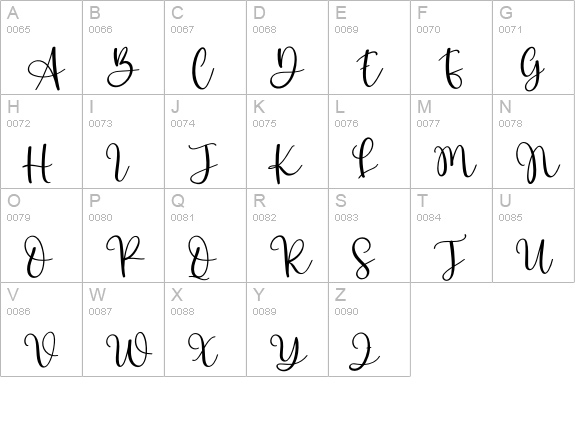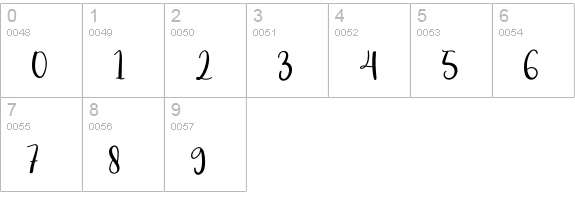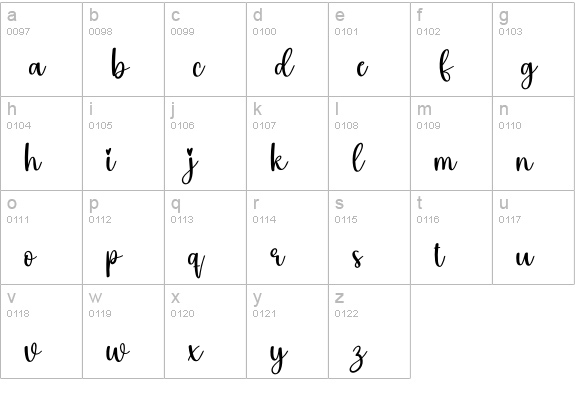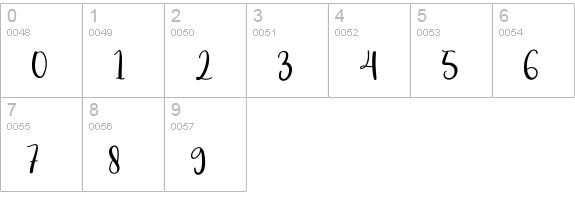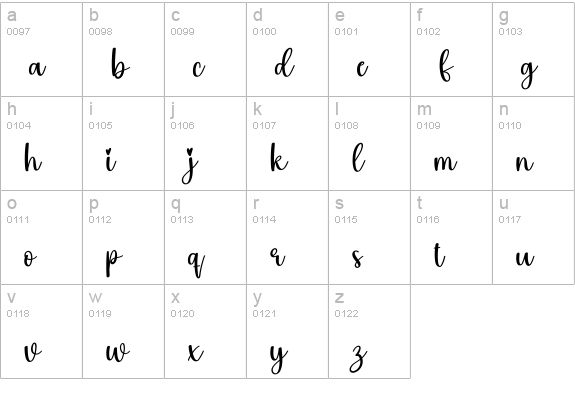
Introducing Biscuit font, a delightful and charming typeface that exudes warmth and friendliness. With its rounded edges and playful design, Biscuit font is perfect for adding a touch of whimsy to your projects. Whether you're designing greeting cards, invitations, or branding materials, this font will bring a sense of joy and creativity to your work.